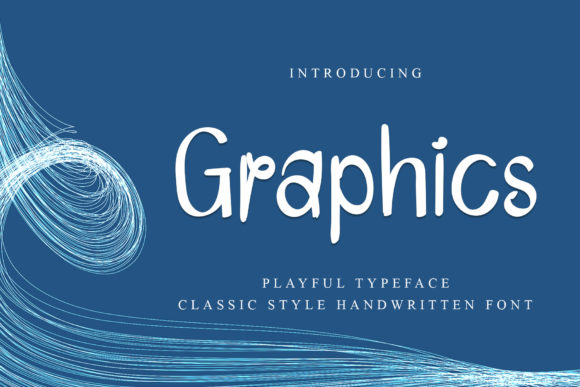
Unleash the Enchantment of Graphics Font: The Perfect Muse for Your Creative Endeavors
Journey into the realm of visual artistry with Graphics Font, a breathtaking display font that will ignite your imagination and transform your designs into captivating masterpieces. Crafted with precision and elegance, Graphics Font is the epitome of sophistication, offering a symphony of varied baselines, fine lines, and beautiful glyphs that dance harmoniously to create a visual feast.
With Graphics Font, your words become more than mere text; they morph into expressions of art, each letter a brushstroke in the canvas of your creative vision. Whether you're crafting elegant invitation cards, heartfelt greeting cards, or eye-catching billboards, Graphics Font will elevate your designs to new heights of beauty and allure.
Immerse yourself in the versatility of Graphics Font, a font that effortlessly adapts to a multitude of design projects. From logos that demand attention to business cards that exude professionalism, Graphics Font seamlessly blends in, enhancing your designs with a touch of sophistication that leaves a lasting impression.
Step into the spotlight with Graphics Font, the font that empowers you to make a statement. Its bold presence captivates audiences, drawing them into your visual narratives with an irresistible charm. Whether you're designing posters that demand attention or creating social media graphics that ignite engagement, Graphics Font will amplify your message, making it resonate with your audience.
With Graphics Font, the possibilities are limitless. Embrace the magic of this exceptional font and let your creativity soar. Transform words into art, designs into masterpieces, and ideas into realities. Graphics Font is your ultimate creative companion, guiding you on an extraordinary journey of visual expression.